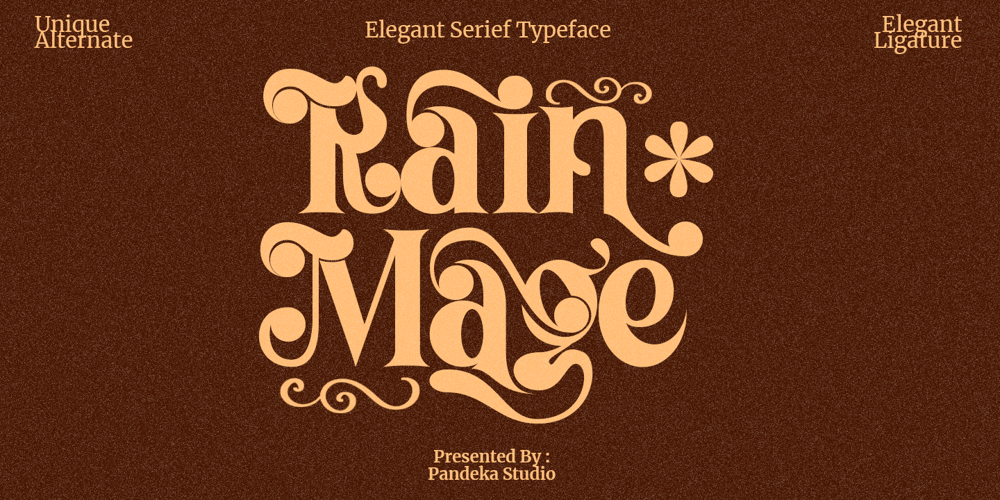
Rain Mage
Rain Mage font
Rain Mage Font Family was designed by Sagara Nararya and published by Pandeka Studio. Rain Mage contains 1 styles and family package options. Rain Mage feels playfully nostalgic and delivers an incredible vintage aesthetic. Use this serif font to add that special retro touch to any design idea you can think of!Masterfully designed to become a true favorite, this font has the potential to bring each of your creative ideas to the highest level!This font is PUA encoded which means you can access all of the glyphs and swashes with ease!What’s Included? Rain Mage Main Files 110+ Special Alternates and Ligatures Instructions (Access special characters in all apps, even in Cricut Design) Accessible in Adobe Illustrator, Adobe Photoshop, Microsoft Word even Canva! PUA Encoded Characters. Fully accessible without additional design software We highly recommend using a program that supports OpenType features and Glyphs panels like many of Adobe apps and Corel Draw, so you can see and access all Glyph variations.If you need a custom license or have questions, please email to: pandekastudio@gmail.comThank youPandeka Studio